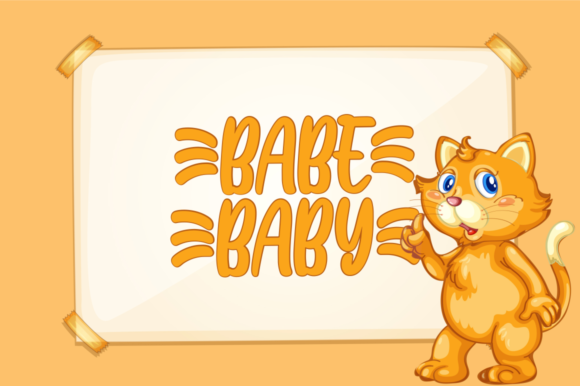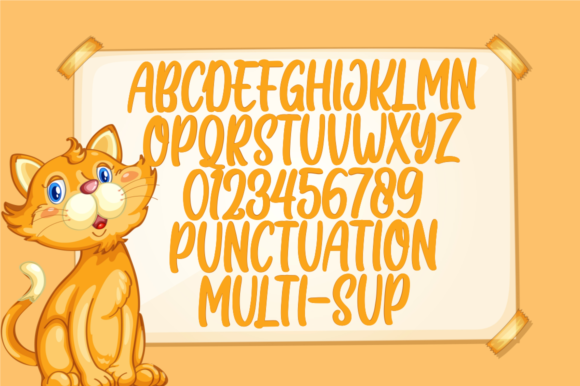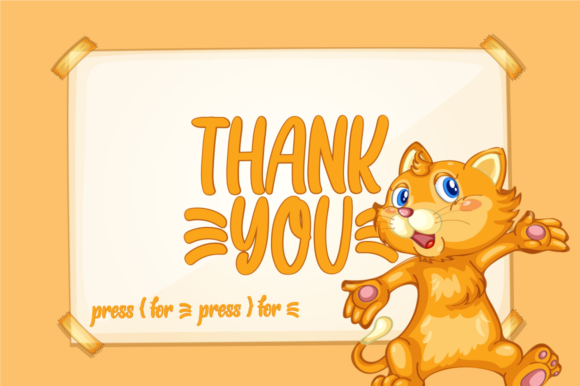
The Perfect Typography Companion: Citcat Font
Have you ever stared at a blank page, trying to find the perfect words to bring your creative vision to life? You know, that moment when everything seems to be in place, except for the one element that will make it truly pop – the font. It’s that moment when you need a trusted companion to elevate your ideas and make them shine. Enter Citcat Font, a bold and colorful display font that will breathe new life into your designs.
Citcat Font is more than just a pretty face – it’s a versatile and friendly font that can adapt to a wide range of contexts. Whether you’re working on a playful campaign, a vibrant logo, or a bold headline, Citcat Font is the perfect addition to your creative toolbox. Its value lies in its ability to add a touch of personality to your designs, making them stand out in a crowded market.
Citcat Font Key Features
- Font Family: Citcat Font is a unique, hand-drawn typeface designed for various applications.
- Unique Characteristics: Citcat Font features a distinctive, hand-drawn style with subtle imperfections, giving it a natural, human touch.
Citcat Font Review
I’ve been experimenting with the Citcat Font, and overall, I’m impressed with its unique personality. Here are the things that shine ✨:
- Quirky and playful vibe: Citcat Font has a certain je ne sais quoi that makes it perfect for projects that need a bit of whimsy.
- Unique letterforms: The font’s design is full of character, with interesting shapes and lines that add visual interest to any text.
- Works well for body text: Despite its playful nature, Citcat Font is surprisingly readable, making it a great choice for body text.
However, there are a few limitations ⚠️:
- Not ideal for formal projects: Citcat Font’s quirky vibe might not be the best fit for formal or professional projects.
- Limited language support: The font’s design is primarily geared towards Latin-based languages, so it might not be the best choice for projects that require support for other languages.
Overall, I think Citcat Font is a great addition to any designer’s toolkit. While it may not be suitable for every project, it’s perfect for those that need a bit of personality and visual interest. With a bit of caution and consideration for the project’s requirements, Citcat Font can be a real showstopper.
For best results, use Citcat Font in titles and headings to add a touch of elegance and sophistication to your design.
For best results, use Citcat Font in combination with bold lines and shapes to create a striking visual effect.
For best results, use Citcat Font in titles and headings to add a touch of professionalism to your presentation or document.
Citcat Font is perfect for:
- Designing elegant and sophisticated titles and headings.
- Creating striking visual effects in combination with bold lines and shapes.
- Adding a touch of professionalism to presentations and documents.